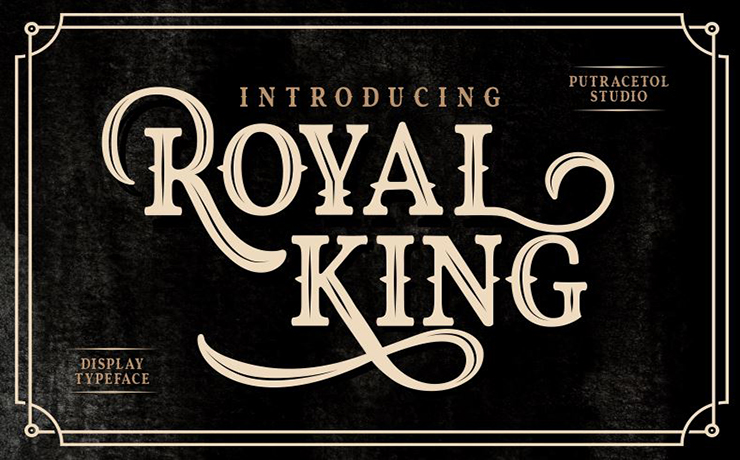
Royal King Font is a fancy typeface you can download it from here! It gives you classic, elegance, and style all in one. Try it out for posters, banners, branding names, logos, and more.
It has a beautiful stylish texture with a deeply vintage shape. This type of font was widely used in the 1960s. So, most likely the designer was impressed with these fonts.
But now it is considered a unique font because it is a great tool for creating unique designs. As we know, the demand for unique and stylish designs is high.
Furthermore, If you are confused about the style of this typeface, check out the image below.
• Because each character has a dancing baseline as well as a decorative form. That’s why, now this unique font has become a good choice for printing and display tasks like cards, quotes, posters, banners, branding, etc.
What is Royal King Font?
Royal King Font is a fancy typeface you can download it from here! It gives you classic, elegance, and style all in one. Try it out for posters, banners, branding names, logos, and more.
Why is Royal King a good font?
Royal King is a good font because it is elegant, stylish, and has a modern design. The font is suitable for use in a variety of design projects, such as logos, wedding invitations, and branding materials.